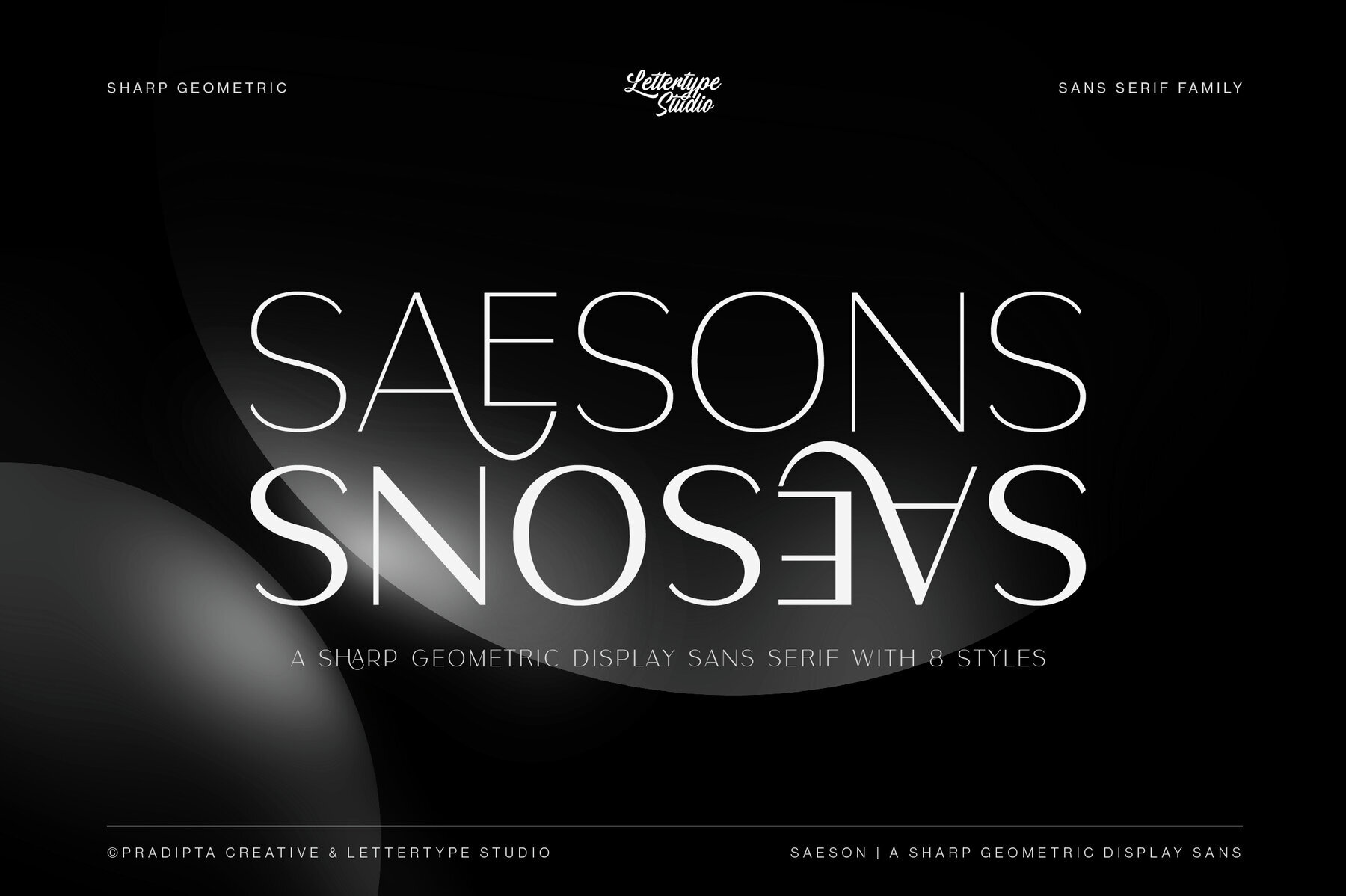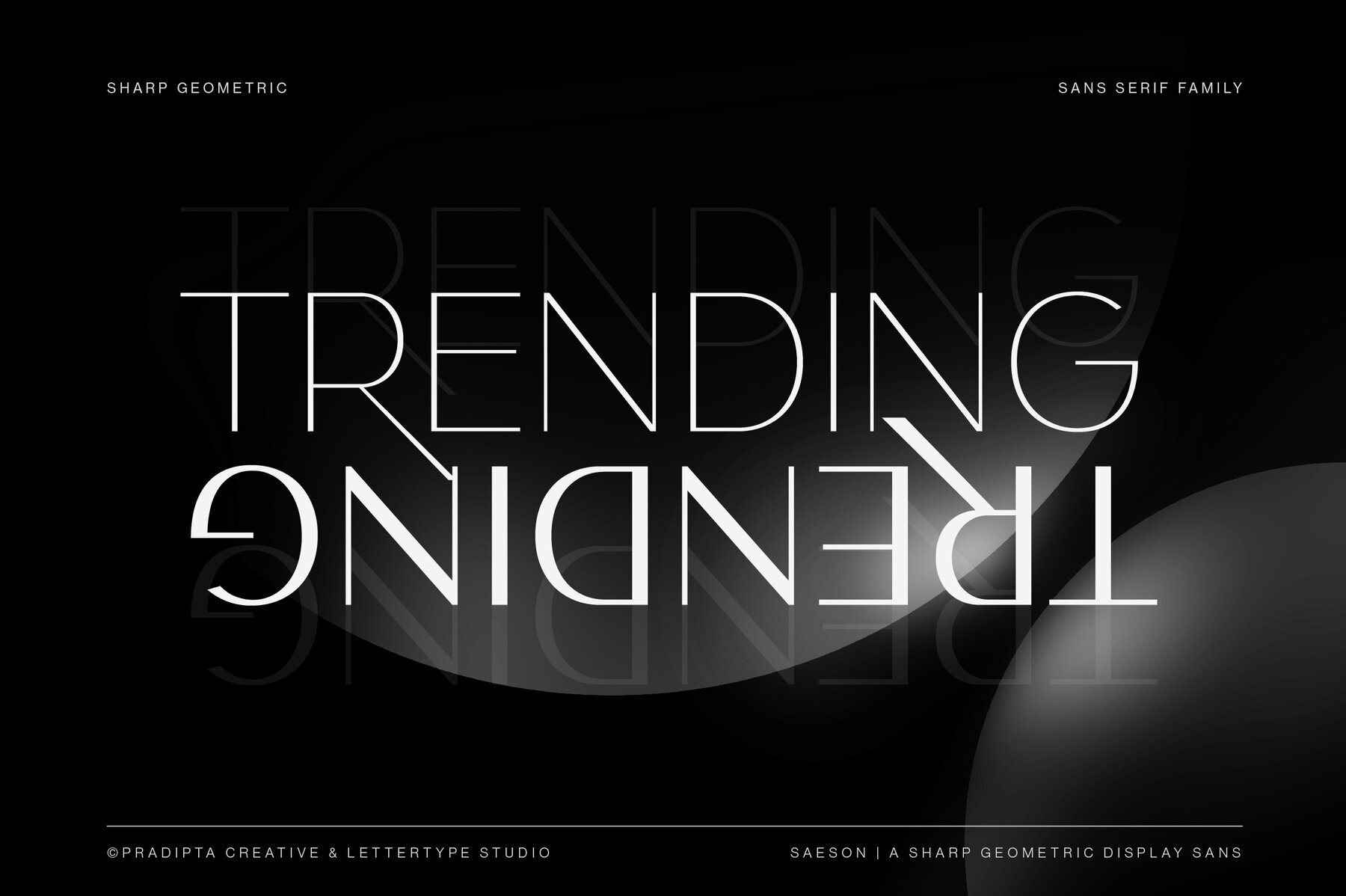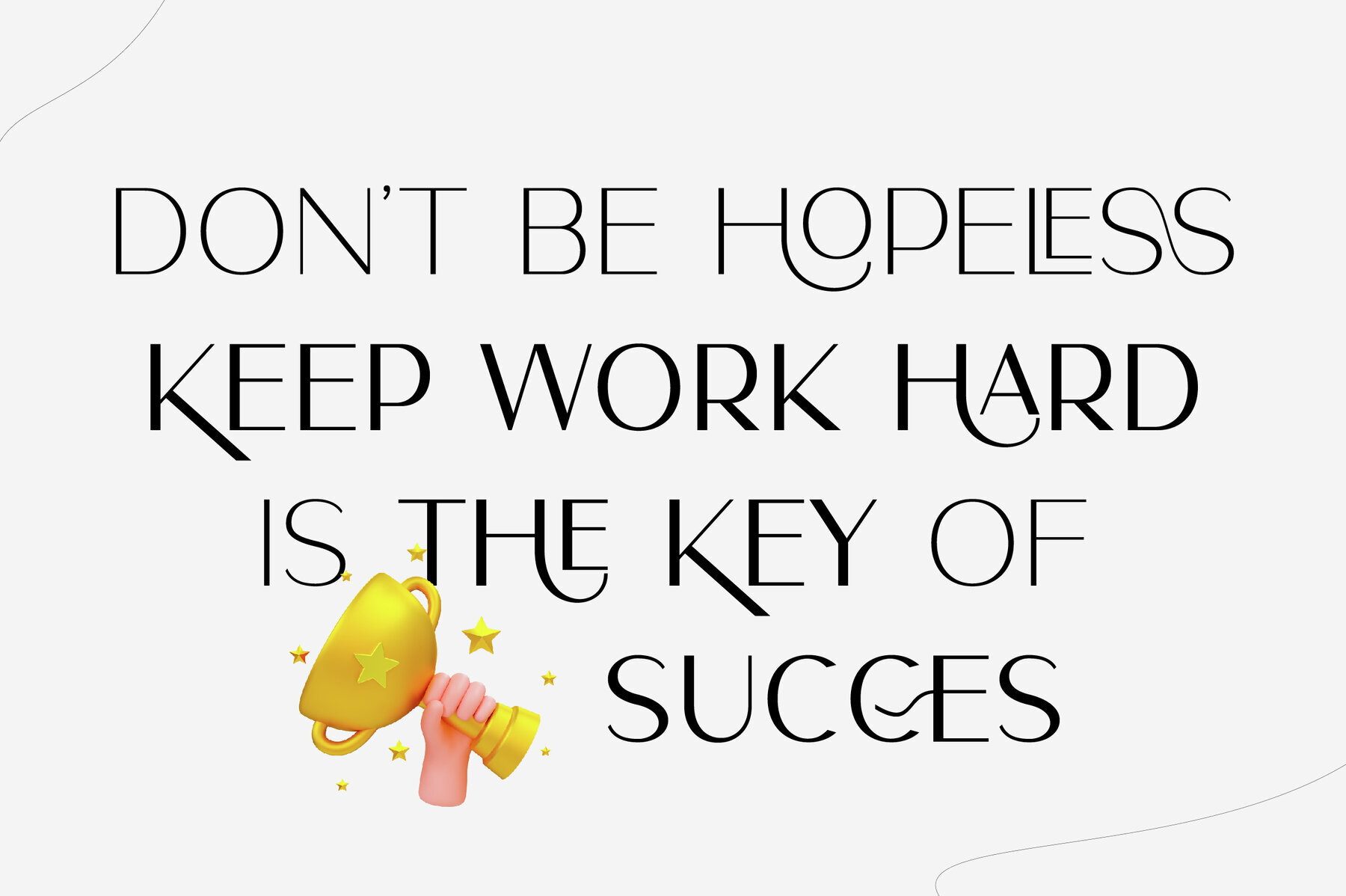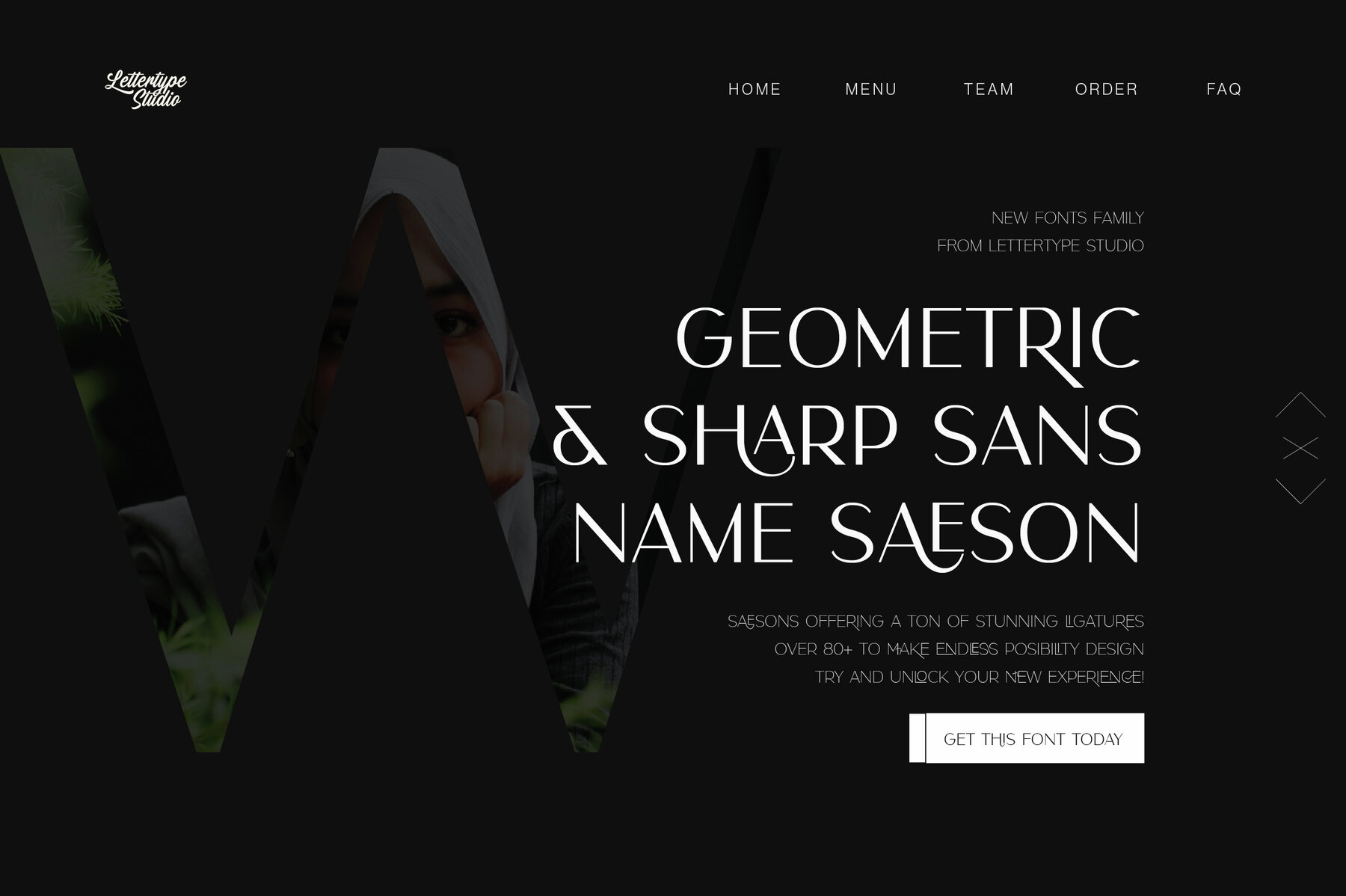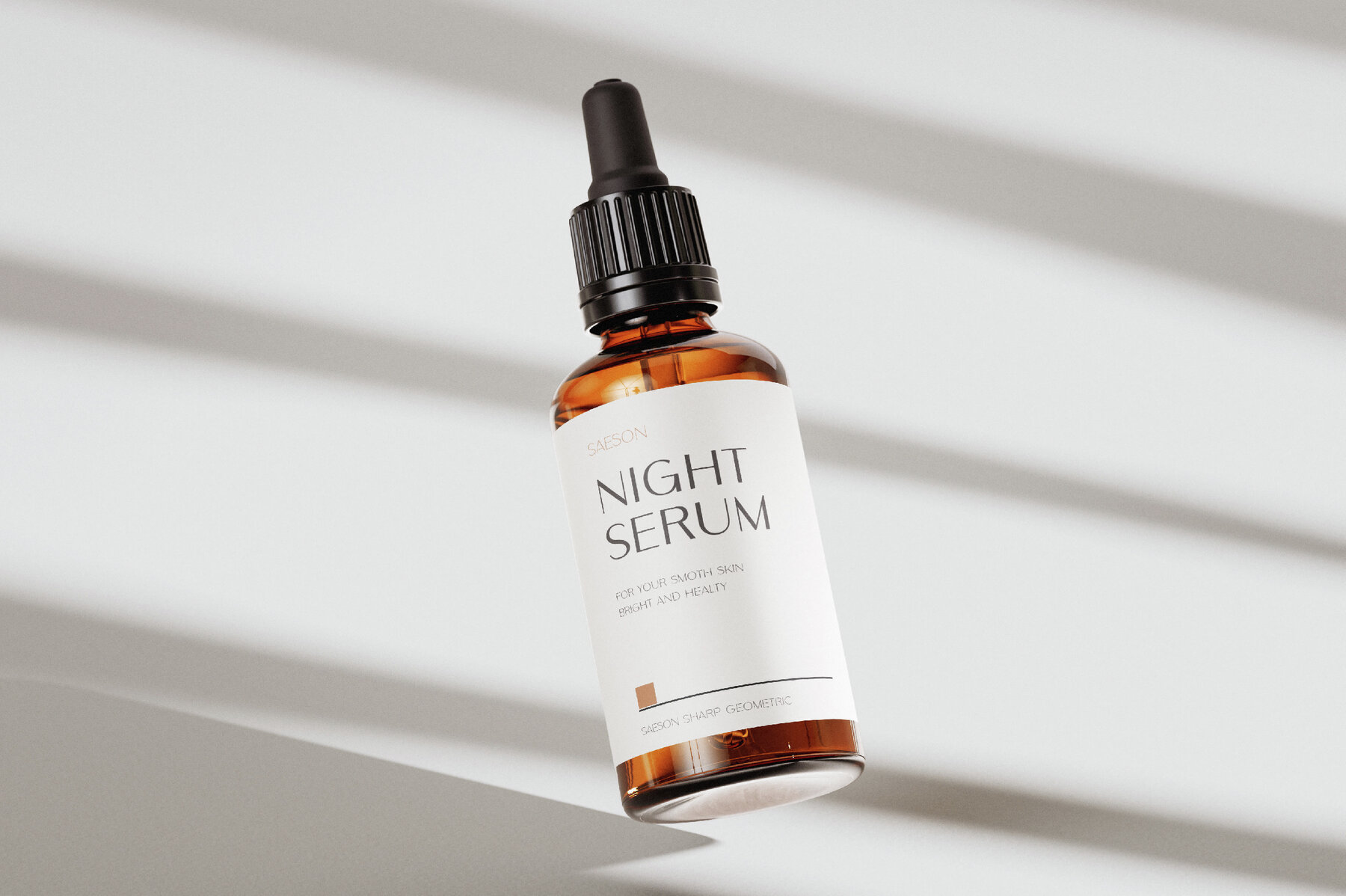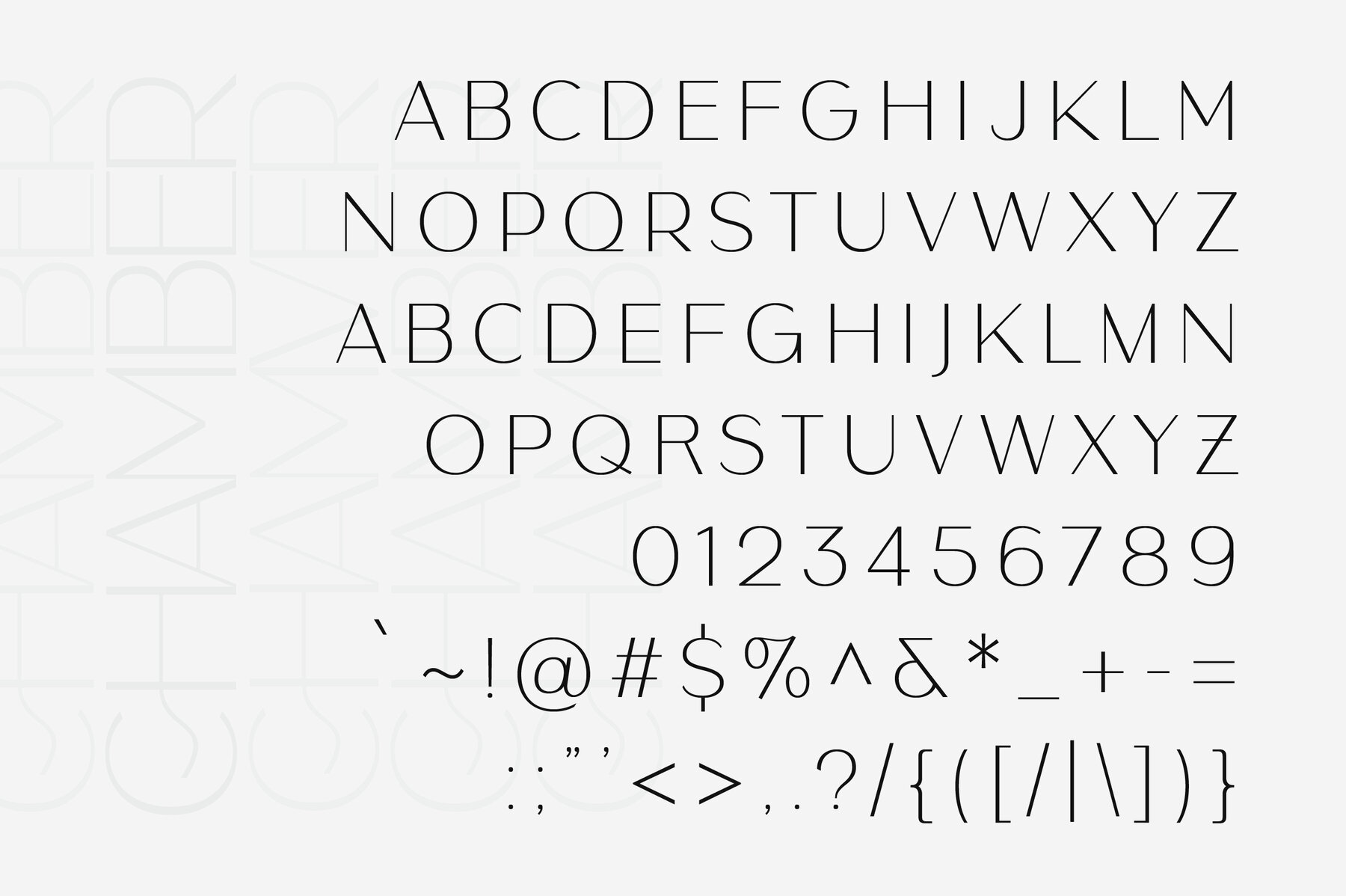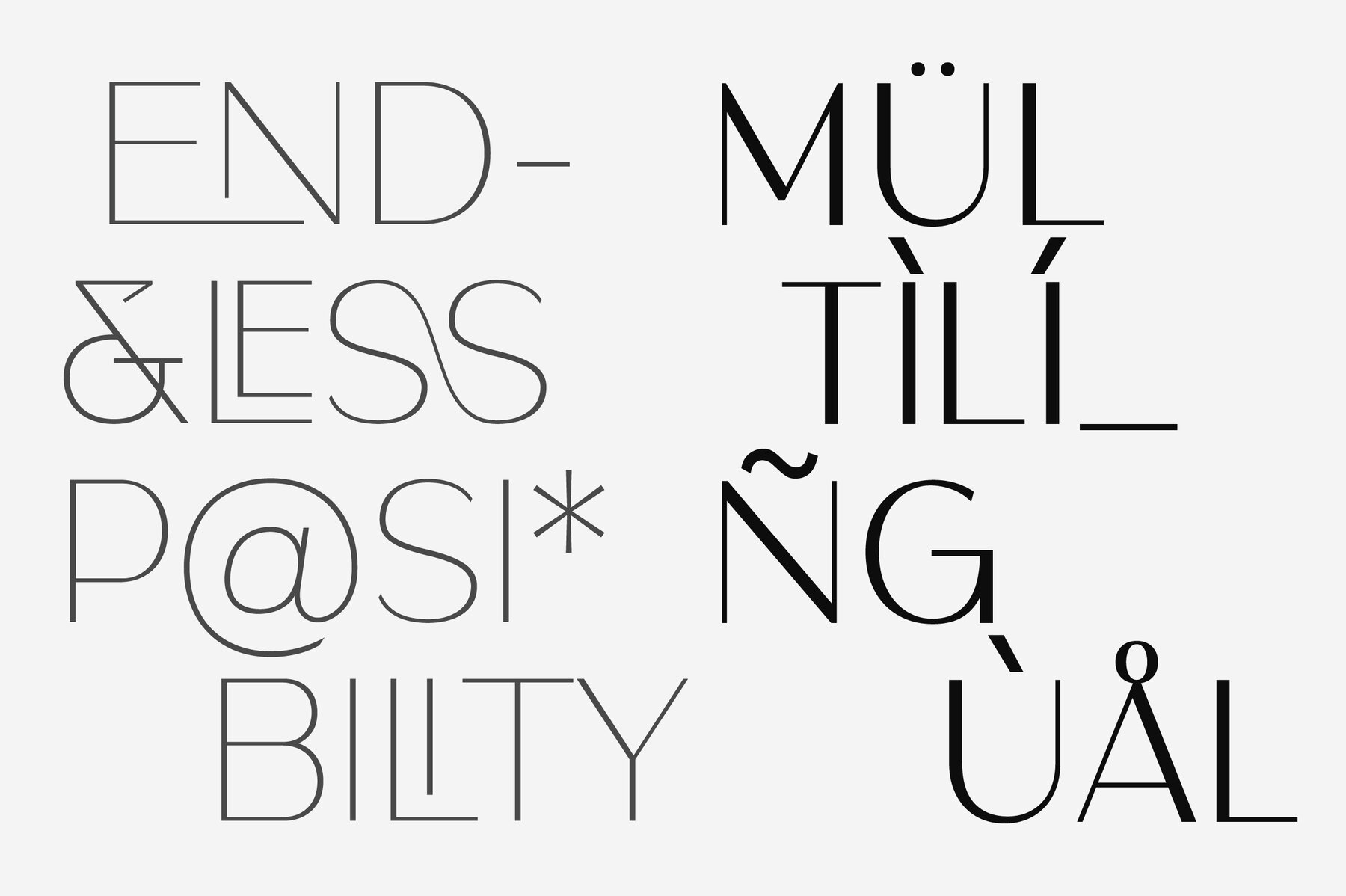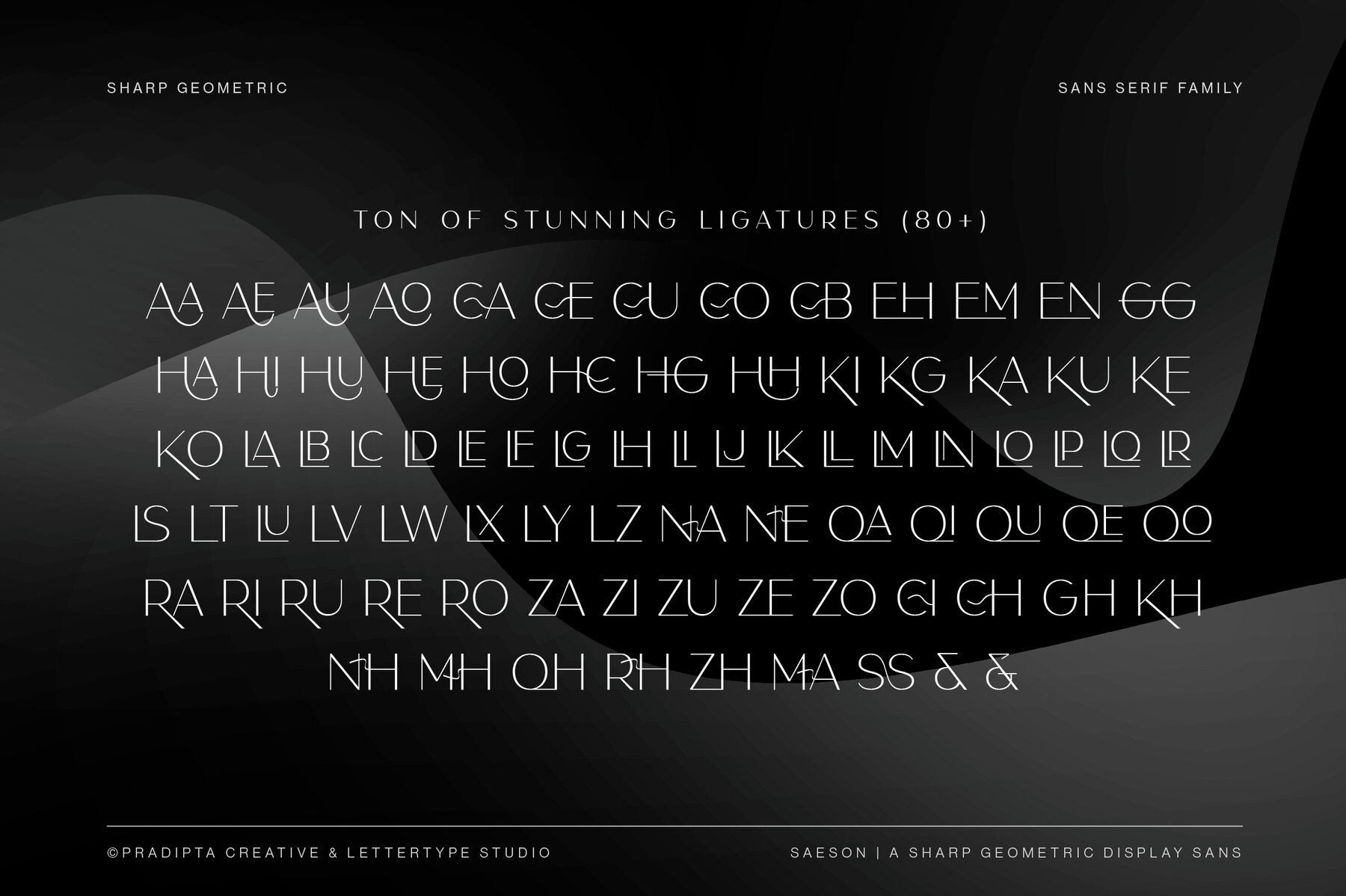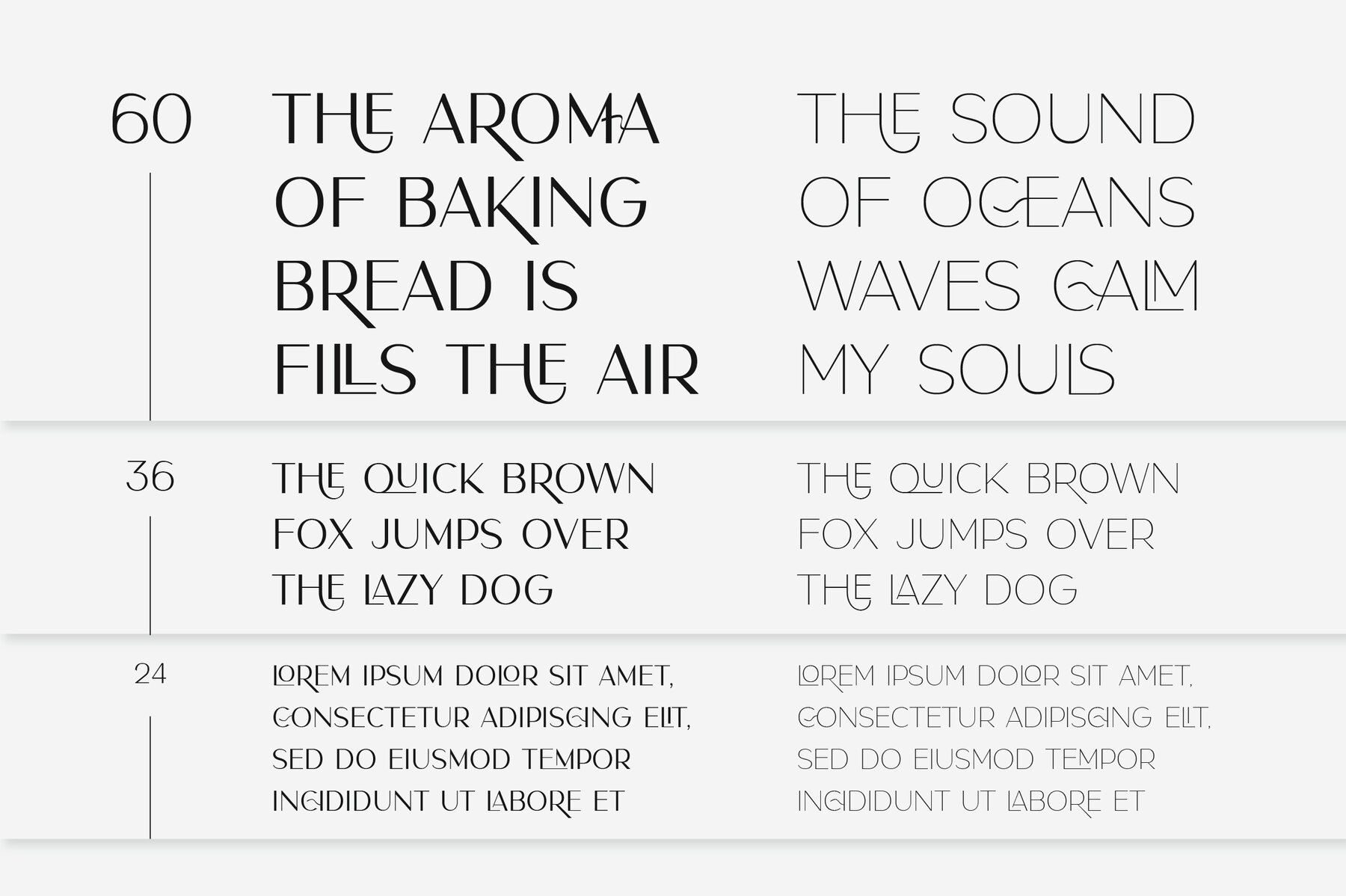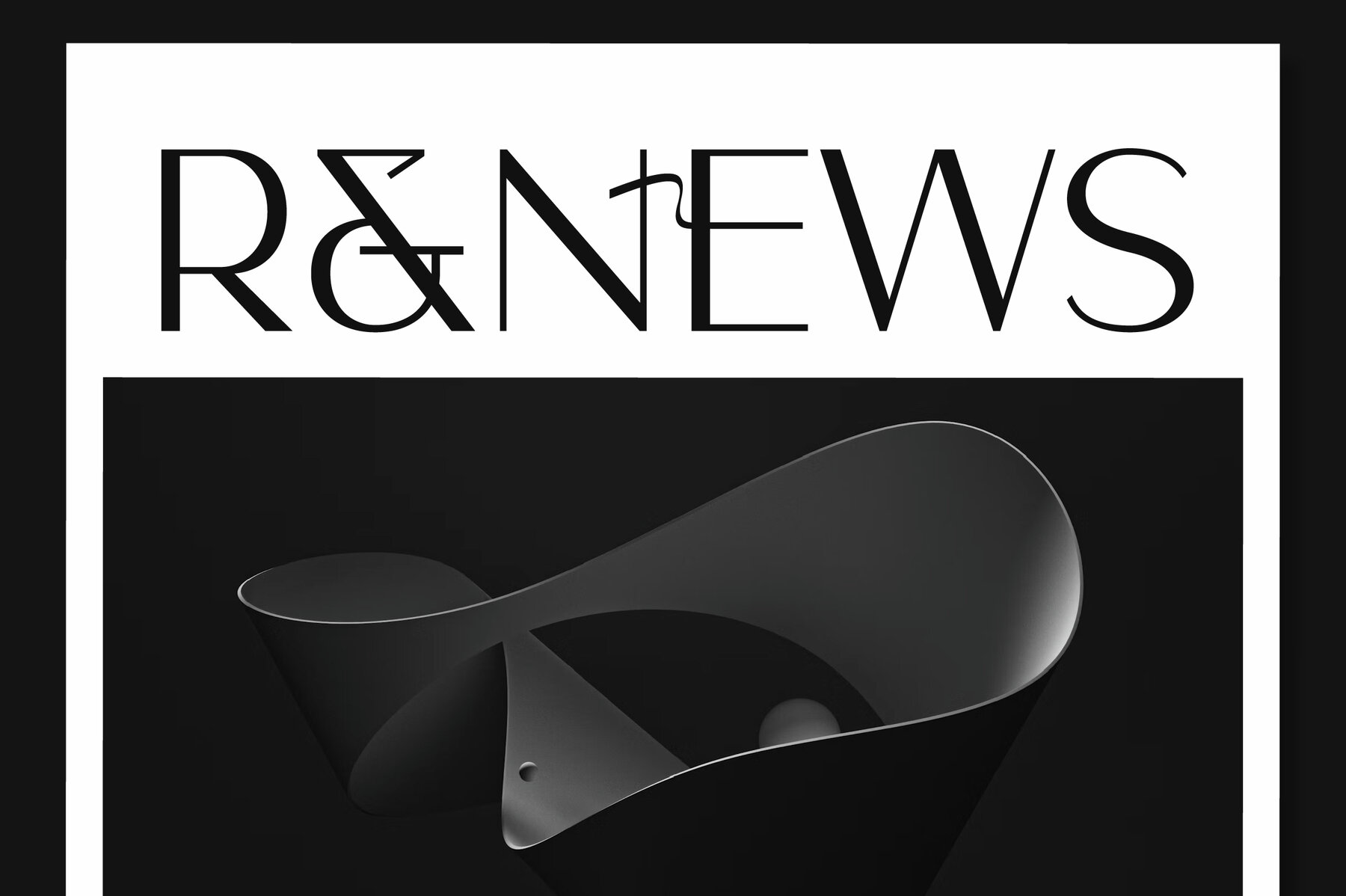
Saeson Font
Saeson offers a sharp, geometric approach to display sans-serif typography. Designed for versatility and precision, it delivers clean lines and angular cuts that stand out in any contemporary setting. With more than 80 alternate glyphs and eight distinct font styles, Saeson gives designers precise control to create bold, structured visual identities. Its refined balance and clarity make it an exceptional choice for digital layouts, headers, and striking branding projects. This typeface includes support for over 260 languages and 476 glyphs, making it suitable for global design needs. Saeson maintains a professional tone and polished appearance, seamlessly fitting creative applications across a wide range of industries. Use it to establish a sophisticated, cohesive look in both print and digital environments.Saeson: Geometric Display Sans-Serif for Modern Design